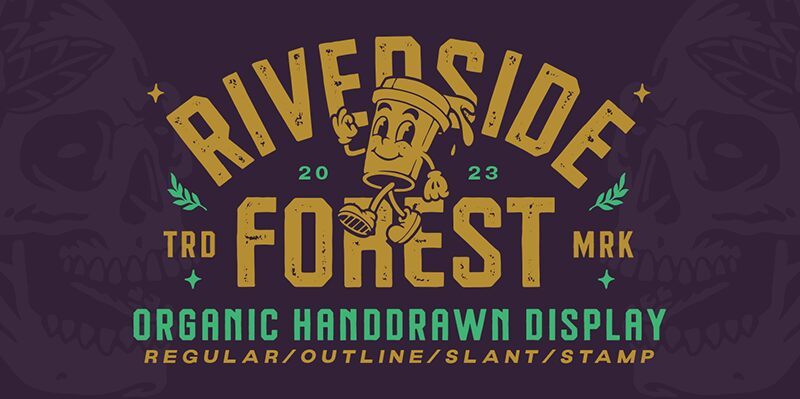
Riverside Forest Stamp font by Letterhend Studio is a free display font offering grunge texture with an industrial feel. The distressed appearance of the characters provides a rugged aesthetic that brings vibes from the mid-20th century. This truly inspiring condensed eroded font has a built-in visual impact, making it impossible to unsee after reading.
Designers and marketers can freely integrate Riverside Forest into posters, flyers, and brochures as part of design or organic advertising campaigns. Websites and apps can take advantage of its look as part of logos or icons for their brands or products. Use this in digital work as headers on websites, social media design posts, landing page designs, as well as cover art for albums and books. Other excellent applications would also include greeting cards, packaging designs for beverages or food items in addition to magazine covers and interior pages layout compilations.